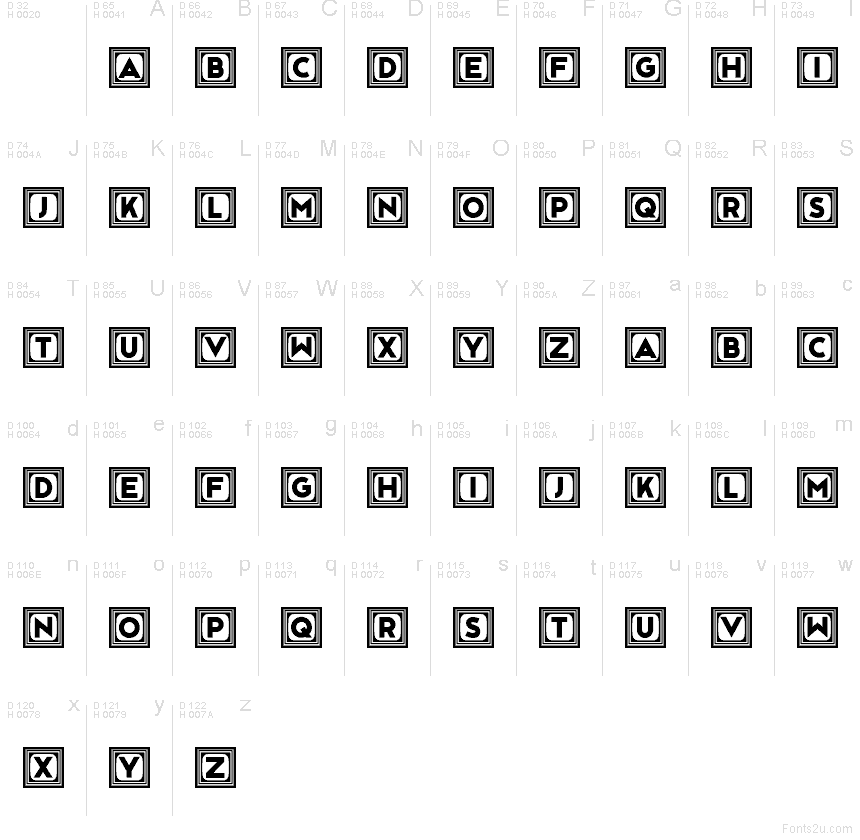
Crayon Bold, by Vladimir Nikolic, is a free framed display font with chunky geometric letters set inside double-ruled square panels. The letters feel like vintage sign blocks or toy stamp pieces, with round, open shapes and a slightly playful heft that keeps the look graphic rather than fussy.
That built-in panel treatment suits poster headlines, logo badges, packaging labels, title cards, and short social graphics where the lettering needs to behave like a ready-made graphic unit. As a free font, it makes most sense for brief cover lines, monograms, or merch marks, because each character already arrives with its own border and strong block presence.
Crayon Bold Regular font presentation and specimen
Crayon Bold Regular font character map
Crayon Bold Regular font character map: Basic Latin, page 1
Glyphs in the Crayon Bold Regular font — Basic Latin, page 1